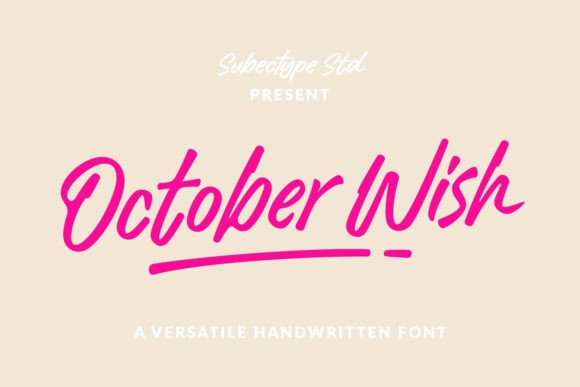
Prepare yourself for a font collection that will add a unique charm and individuality to your creative projects. October Wish, a script font family designed by Subectype, embodies the beauty of handwritten notes with its bold strokes and organic curves. Each letterform is crafted with care, resonating across a wide range of themes and mediums.
Imagine the elegance and sophistication it will add to your invitations, bringing a personal touch that sets your correspondence apart. The versatility of October Wish extends to digital designs, where its natural flow and authenticity shine through. It's the perfect font to add a touch of charm to your social media posts, website designs, and digital marketing materials.
With October Wish, you have the power to elevate your creations beyond the ordinary. Its hand-lettered style evokes a sense of artistry and individuality, making every project you undertake a reflection of your unique style. The font's bold handwriting style adds a touch of personality and authenticity that captivates audiences and leaves a lasting impression.
Explore the diverse applications of October Wish. Its compatibility with Cricut pens makes it a go-to choice for DIY enthusiasts and crafters. Create personalized cards, scrapbooks, and home décor items that exude a handcrafted charm. The font's ability to effortlessly enhance any project makes it a must-have for those seeking to add a touch of elegance and creativity to their endeavors.
Don't miss out on the opportunity to harness the power of October Wish, the handwritten font that transforms your ideas into captivating creations. Embrace the beauty of bold handwriting and let your projects speak volumes about your unique style and artistry.